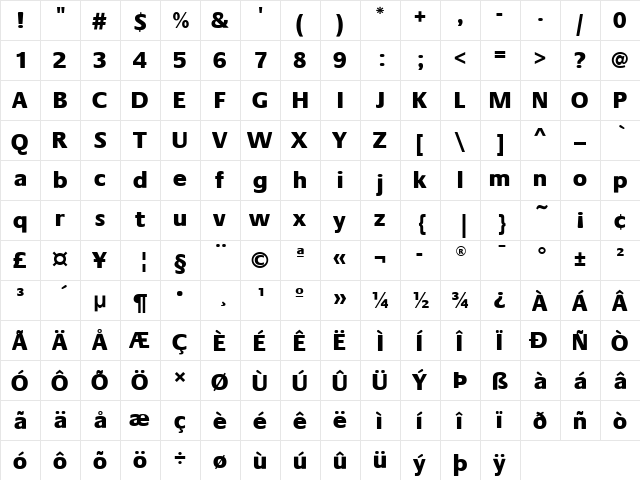
Praxis LT Semibold Bold
Bold · Linotype Library GmbH  ·
Design Context for Praxis LT Semibold Typeface
Praxis LT Semibold is a composed and adaptable typeface that performs quietly and consistently across a wide range of design contexts. Its bold stroke weight gives it real presence on the page.